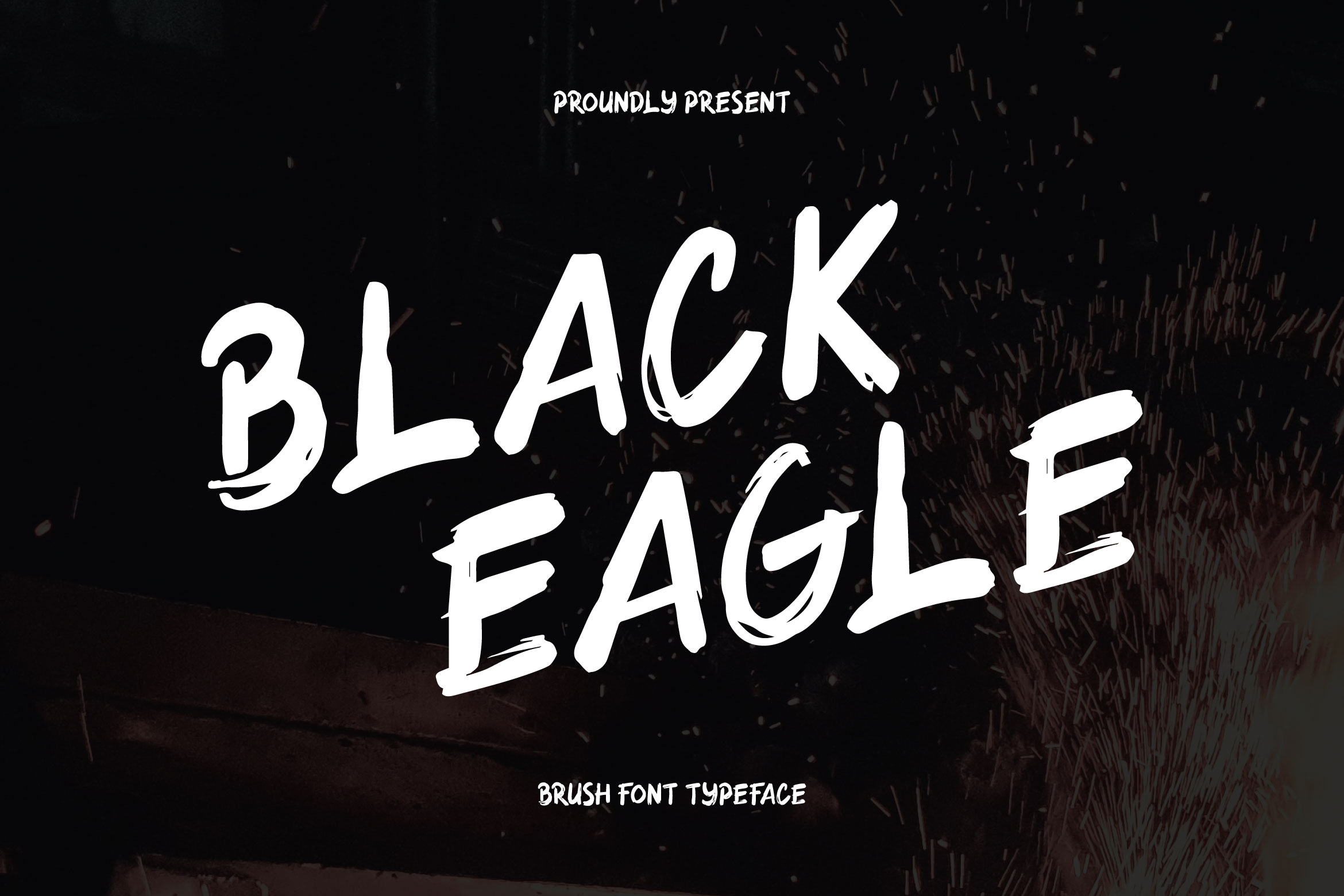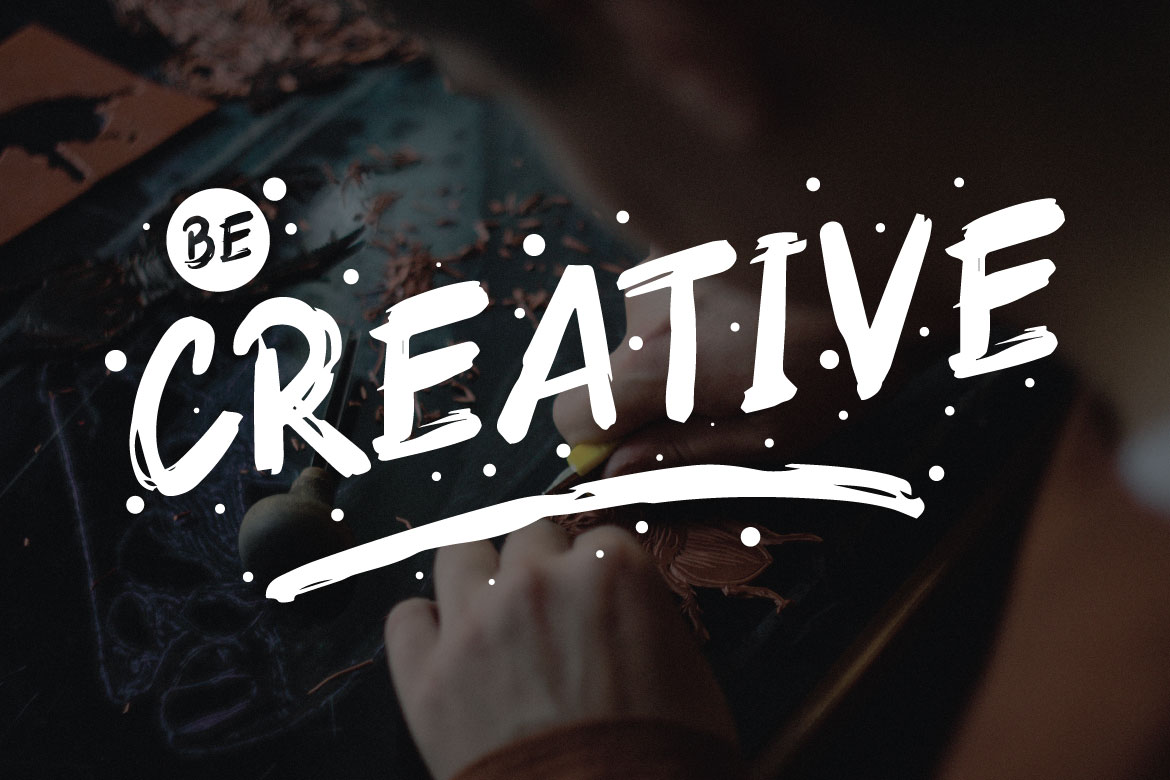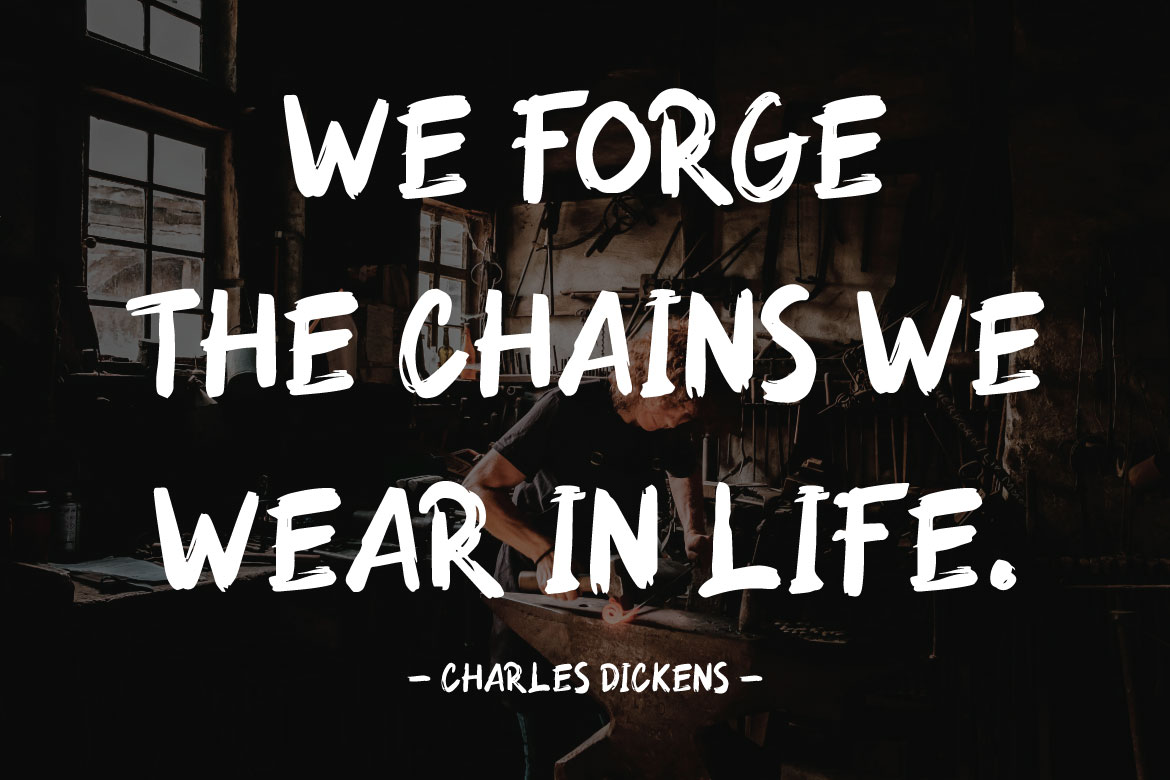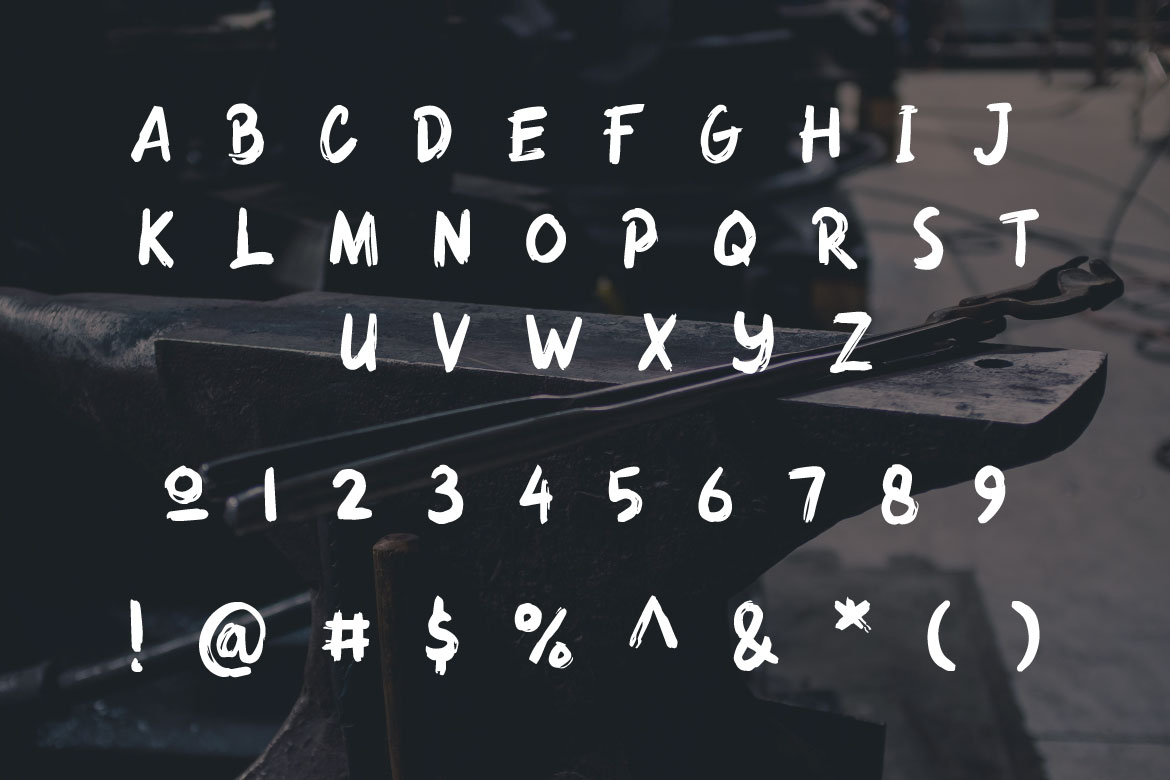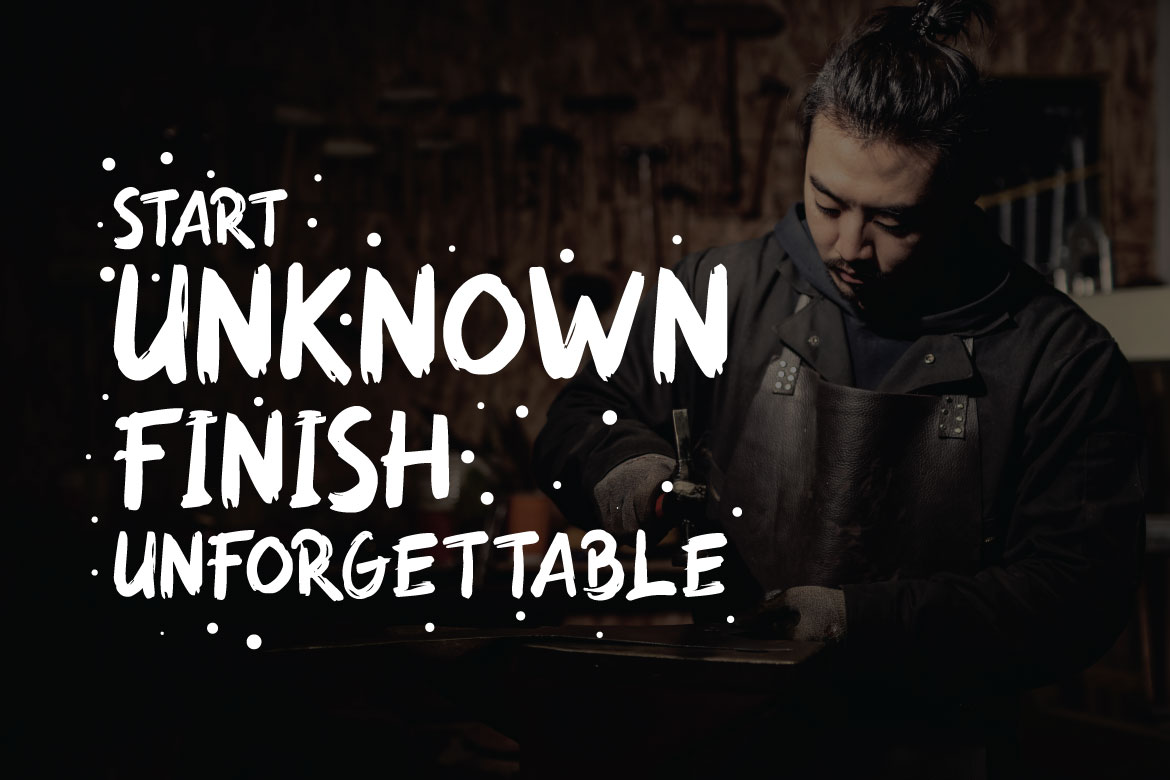
Black Eagle is a bold brush font with a raw, handcrafted look that radiates strength and energy. Designed to emulate fast brush strokes, this typeface delivers a powerful visual punch that makes it ideal for titles, posters, branding, apparel, and motivational quotes. Its textured edges and dynamic flow create a rugged yet artistic appearance that stands out in both digital and print designs.
The font includes uppercase characters, numerals, and punctuation, all drawn with an expressive brush style. Whether you’re designing for a rock band, a sports event, or a craftsman brand, Black Eagle adds a fearless, adventurous spirit to your layout. It’s perfect for creatives who want to inject boldness, emotion, and a handcrafted vibe into their work.
Black Eagle